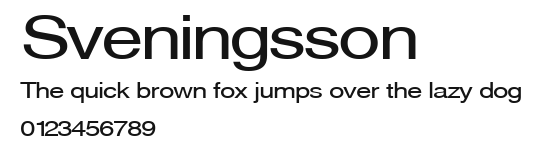
Sveningsson.ttf is a modern, elegant sans-serif font designed for ultimate readability and visual harmony. Perfect for branding, headlines, web design, and print materials.